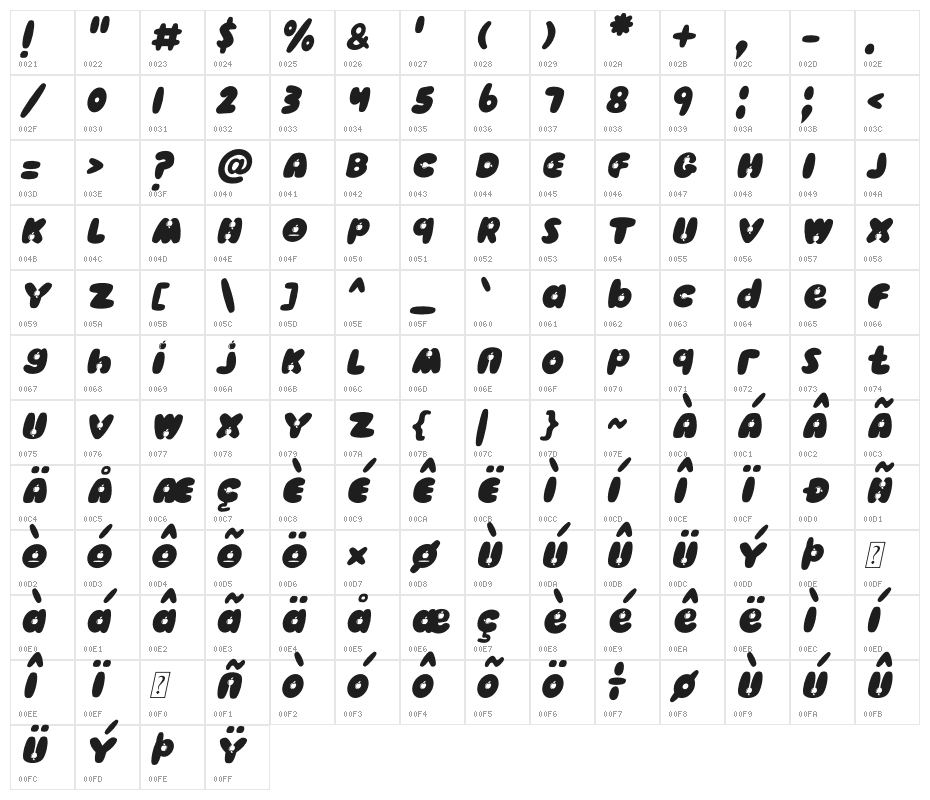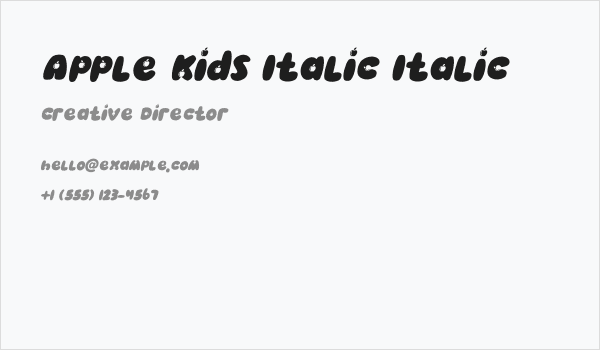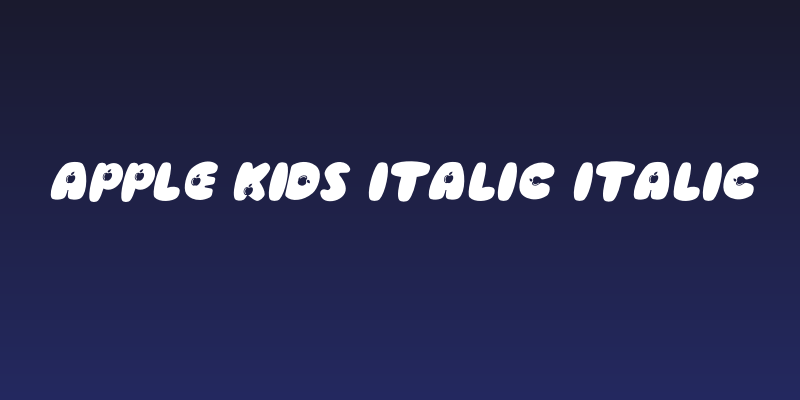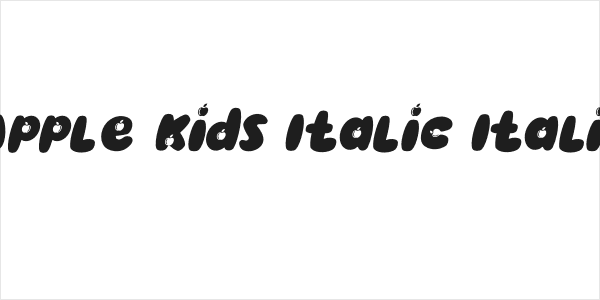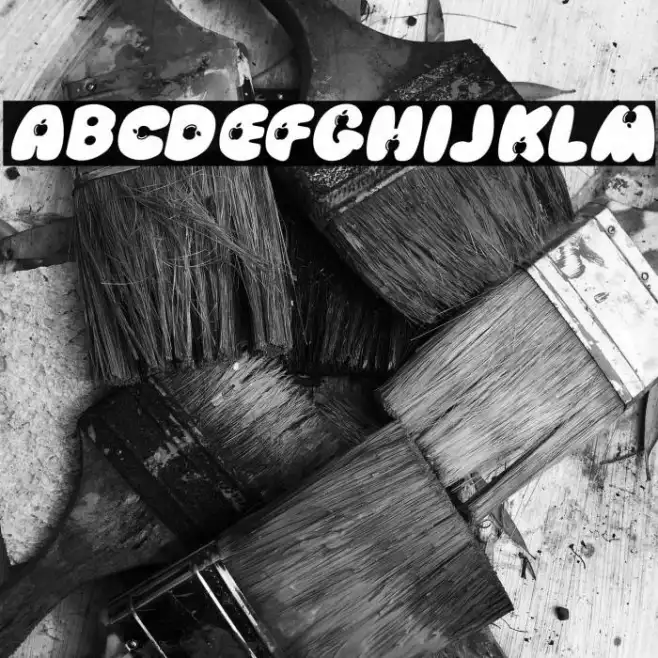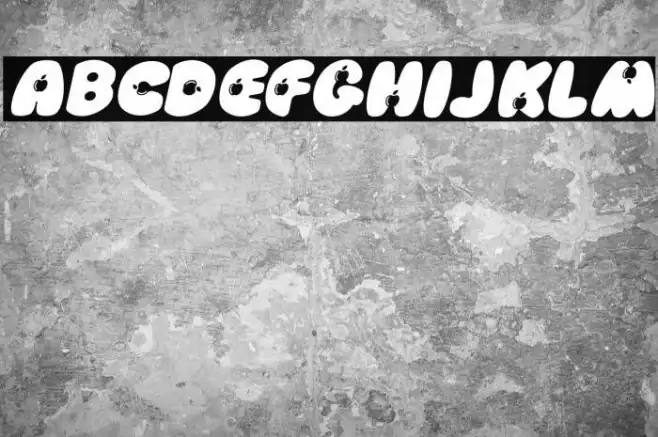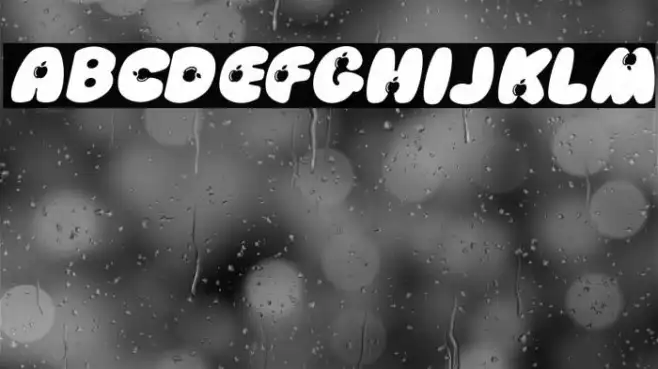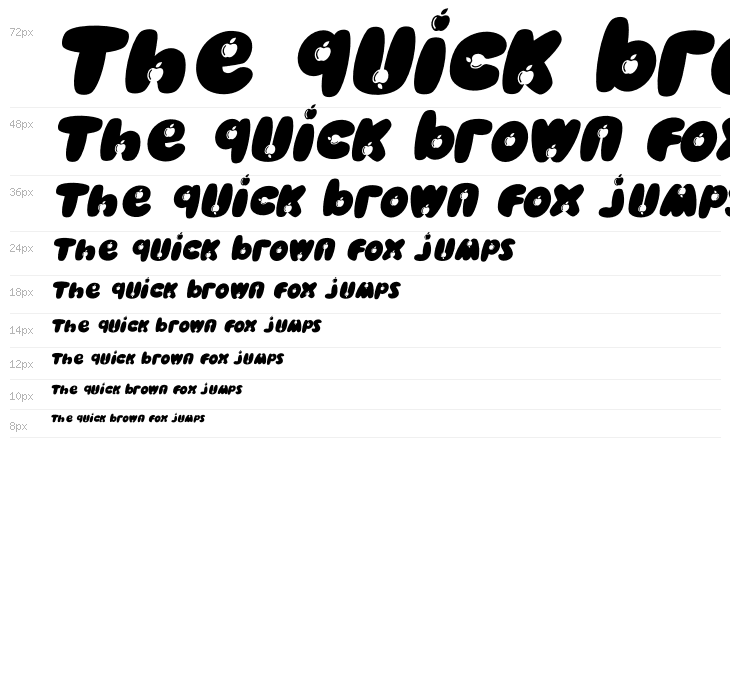
Apple Kids Italic Italic Font
Apple Kids Italic Italic Description
This playful and bold font features rounded, bubble-like characters that convey a sense of fun and whimsy. The letters are thick and heavy, with a consistent stroke width that gives them a solid appearance. The font has a unique, cartoonish style, with each character slightly tilted, adding to its dynamic and lively feel. The uppercase and lowercase letters maintain a uniform style, while the numbers and special characters integrate seamlessly, ensuring versatility in various design contexts. The font's boldness and distinctive style make it ideal for capturing attention and conveying a lighthearted tone.
| Overall Style | Playful, Cartoonish |
| Proposed Projects | Ideal for children's books, playful branding, toy packaging, and fun event invitations. |